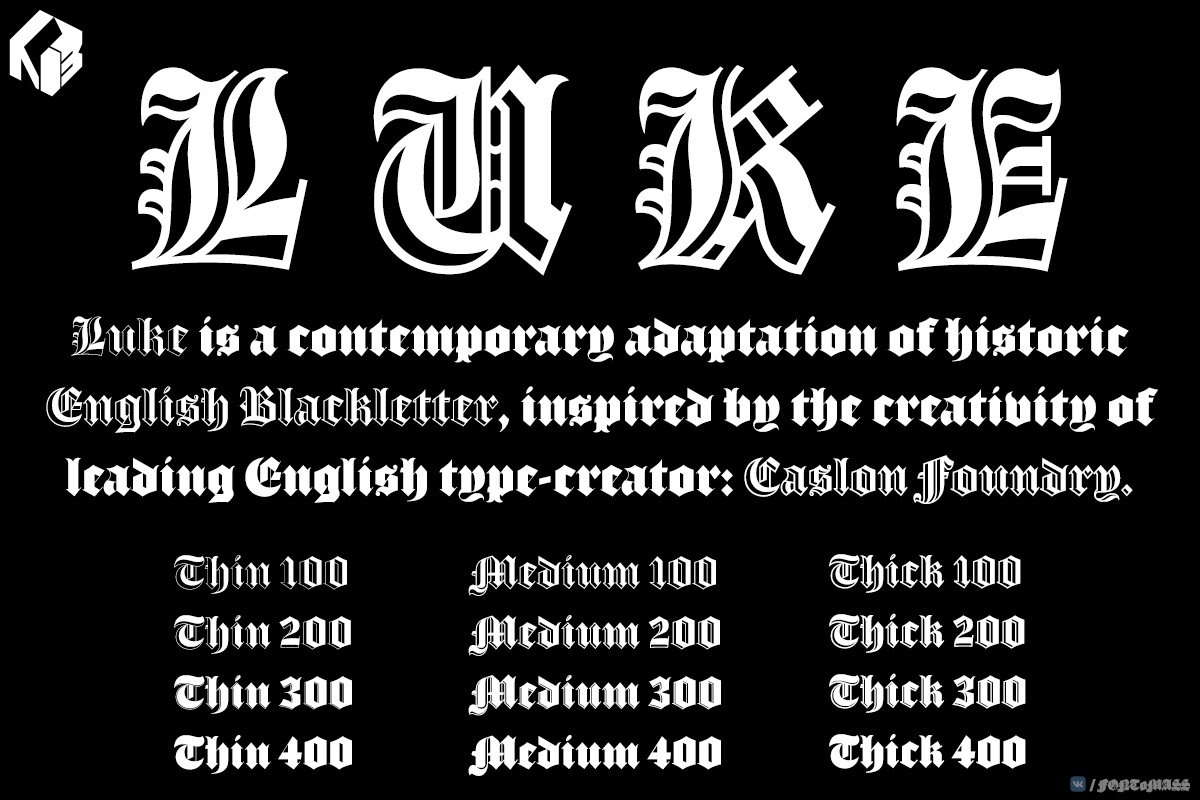
Luke Font
Luke Font is perfect for reliable service businesses, trustworthy consulting firms, dependable family brands, honest trade companies, straightforward professional communications, community-focused organizations, neighborhood business signage, local service providers, authentic personal brands, and genuine relationship-building campaigns.
What makes Luke Font so exciting is its remarkable ability to embody genuine reliability and honest communication through letterforms that seem built on solid foundations of trust and strengthened by generations of dependable service. This trustworthy typeface captures the essence of authentic reliability and straightforward professionalism with characters that radiate integrity, dependability, and the kind of honest strength that builds lasting relationships and community trust. The font's grounded design elements perfectly balance personal approachability with professional credibility, creating an indispensable tool that communicates genuine trustworthiness, reliable service, and authentic connection, making it essential for businesses and organizations that build their reputation on honest dealing and dependable service to their communities and clients.
Luke Font comes in multiple font families including Regular, Bold, Light, Italic, Bold Italic, Reliable, Trustworthy, and Genuine variations. Each family member maintains the core dependable characteristics while offering different trust levels and authentic approaches to suit various reliable service and professional design requirements.
The authentic precision in Luke Font makes it particularly effective for service industries and community organizations where building genuine trust and demonstrating reliable competence is crucial for establishing lasting client relationships and community reputation. Its dependable letterforms work exceptionally well across both traditional community applications and contemporary professional communications, maintaining consistent trustworthy appeal and authentic presentation.
Community business professionals recognize how Luke Font transforms ordinary service communications into genuine expressions of reliable professionalism and authentic community connection. The typeface's trustworthy character set includes honest symbols, reliable elements, and community features that enhance the overall dependable atmosphere of any service-focused or community-oriented project.
For creative professionals serving local businesses, community organizations, and authentic service providers, Luke Font serves as the perfect foundation for establishing memorable visual identities that capture the essential qualities of genuine reliability, honest service, and authentic community connection that define successful businesses built on trust, dependability, and the kind of straightforward professionalism that creates lasting relationships and strong community bonds.